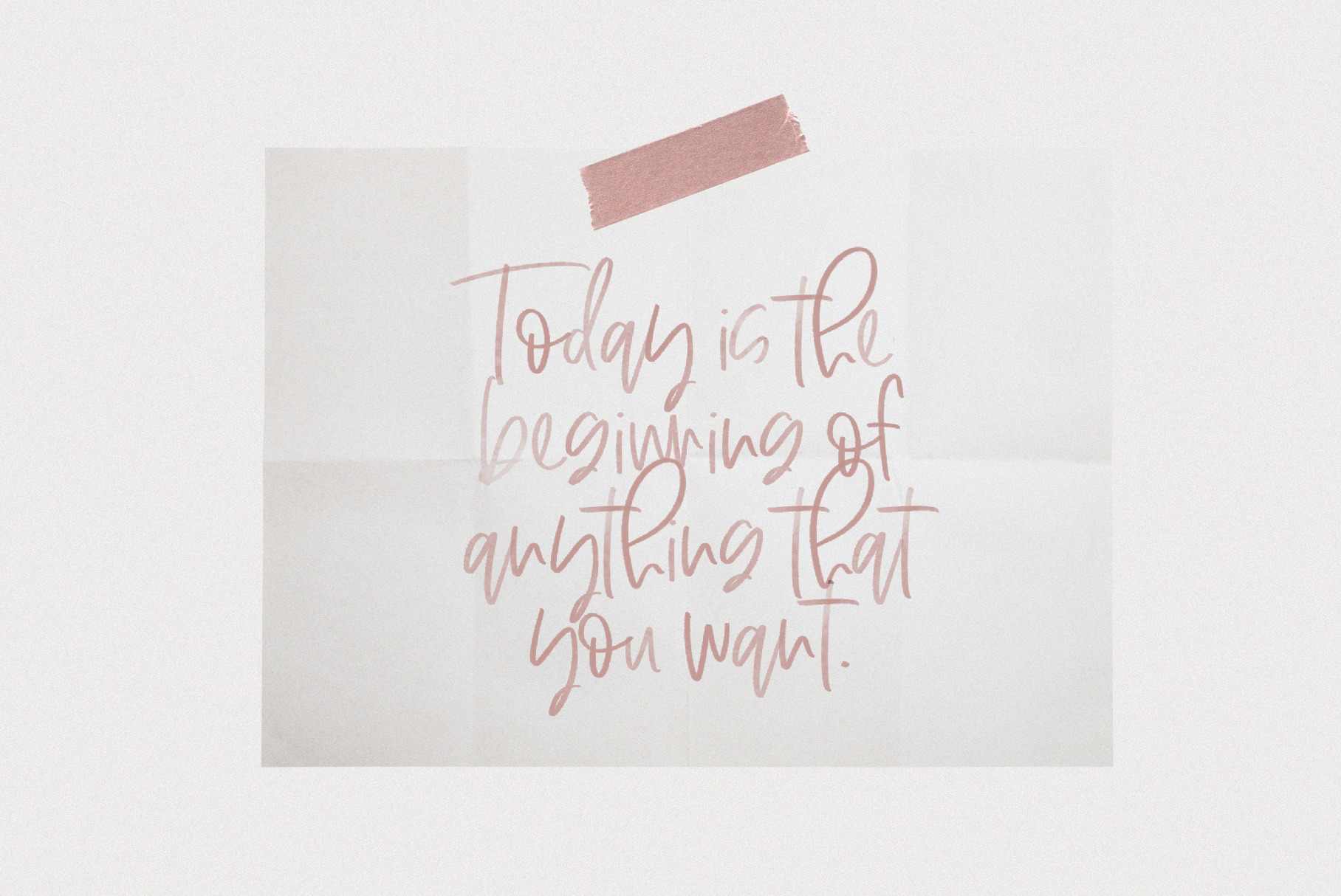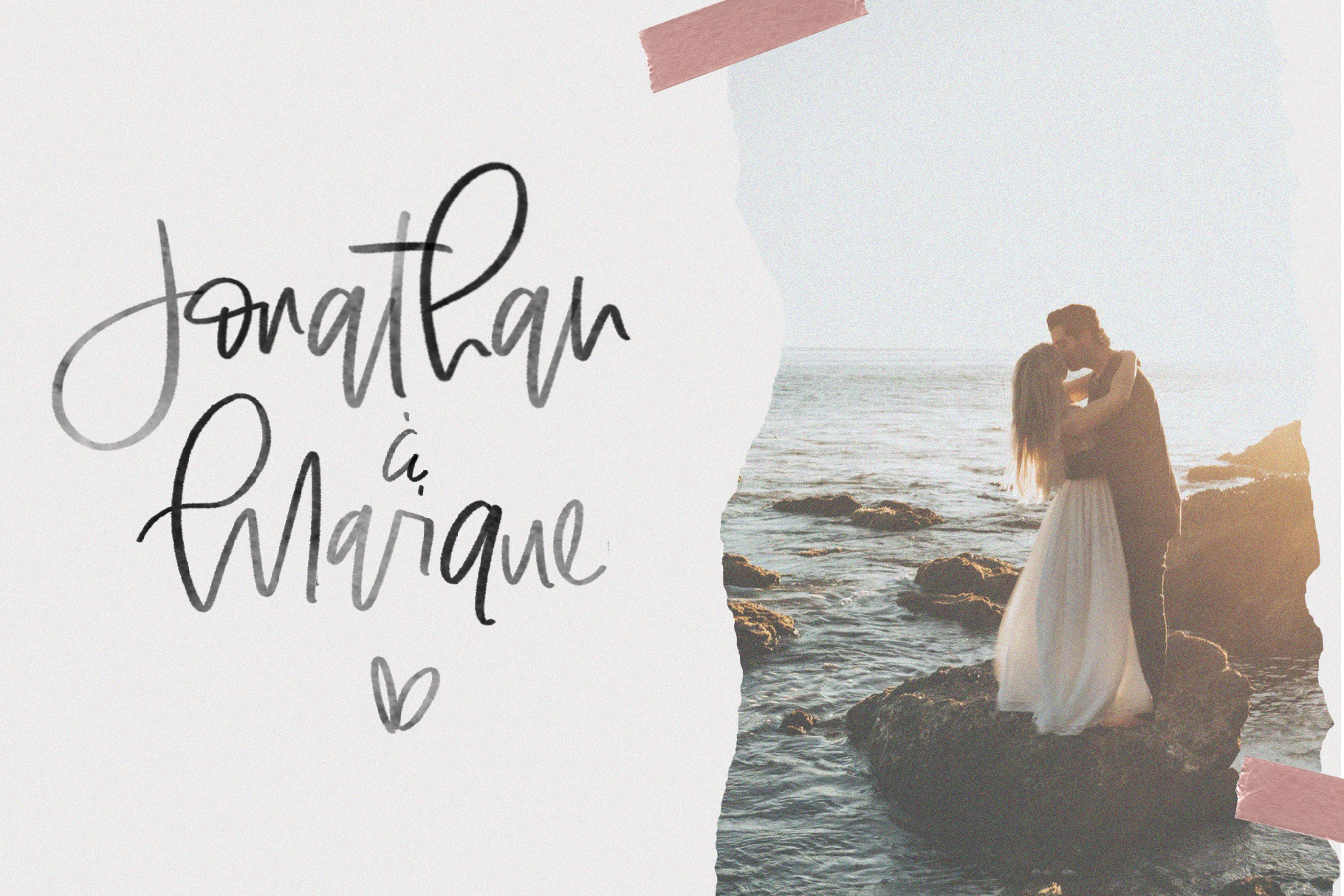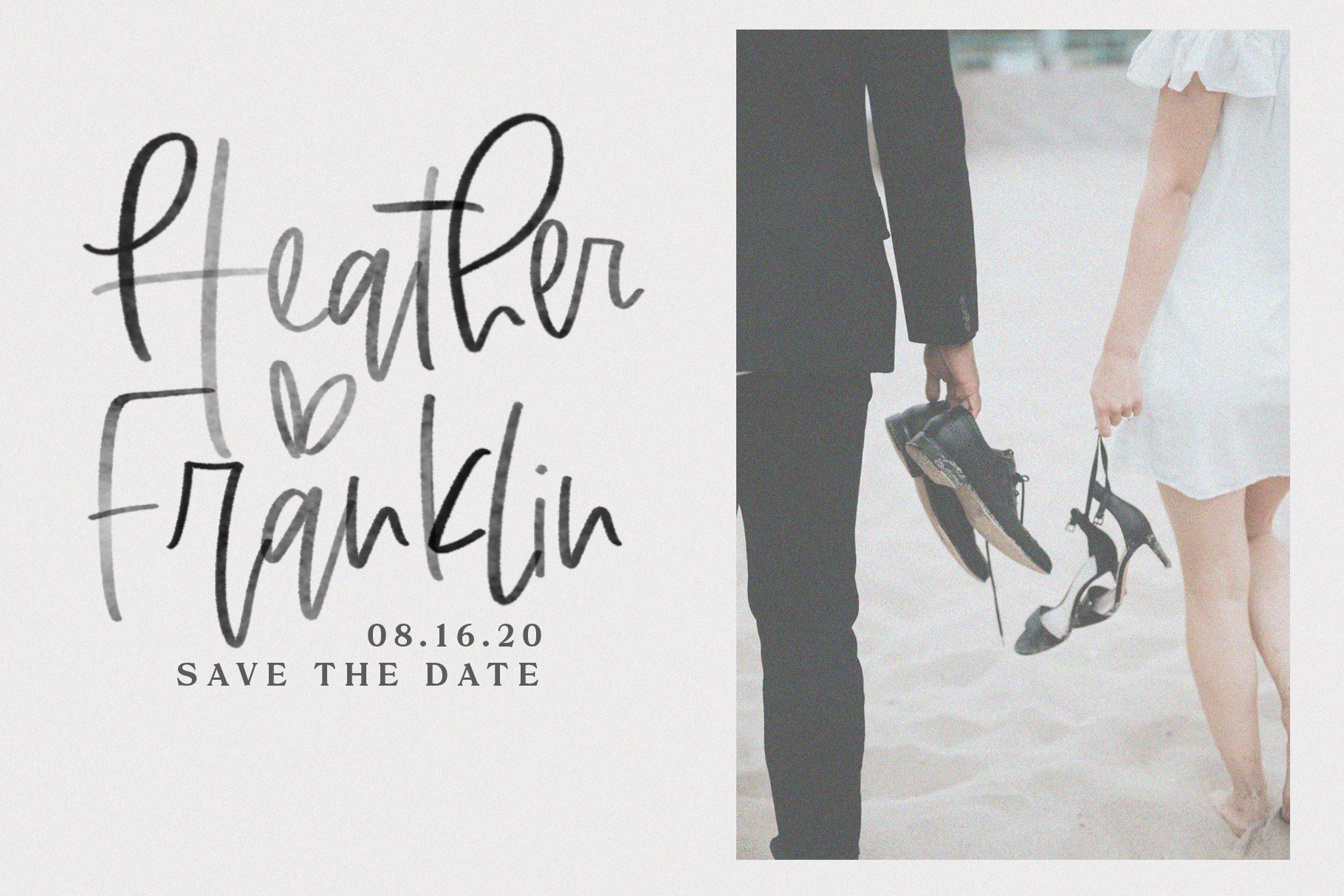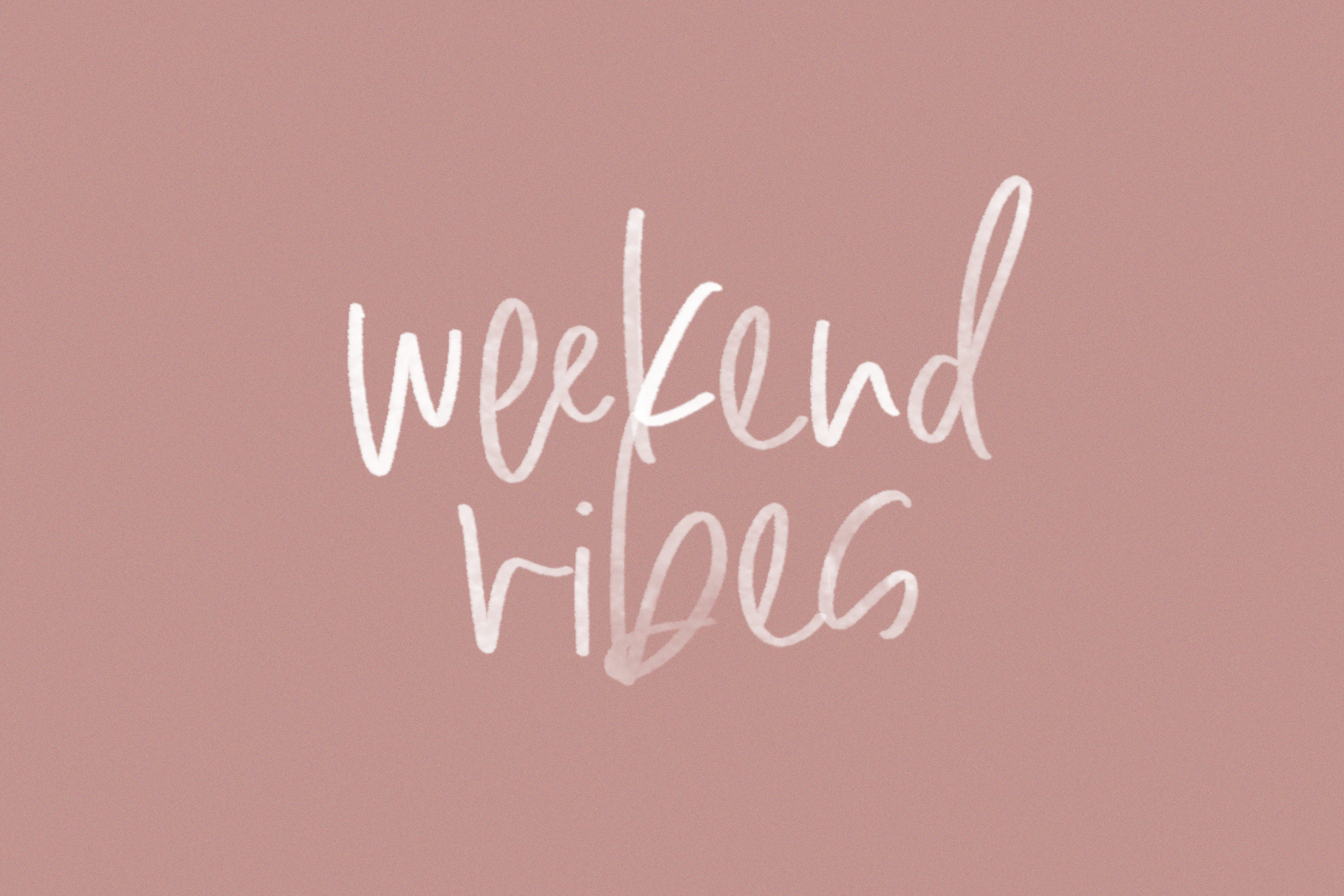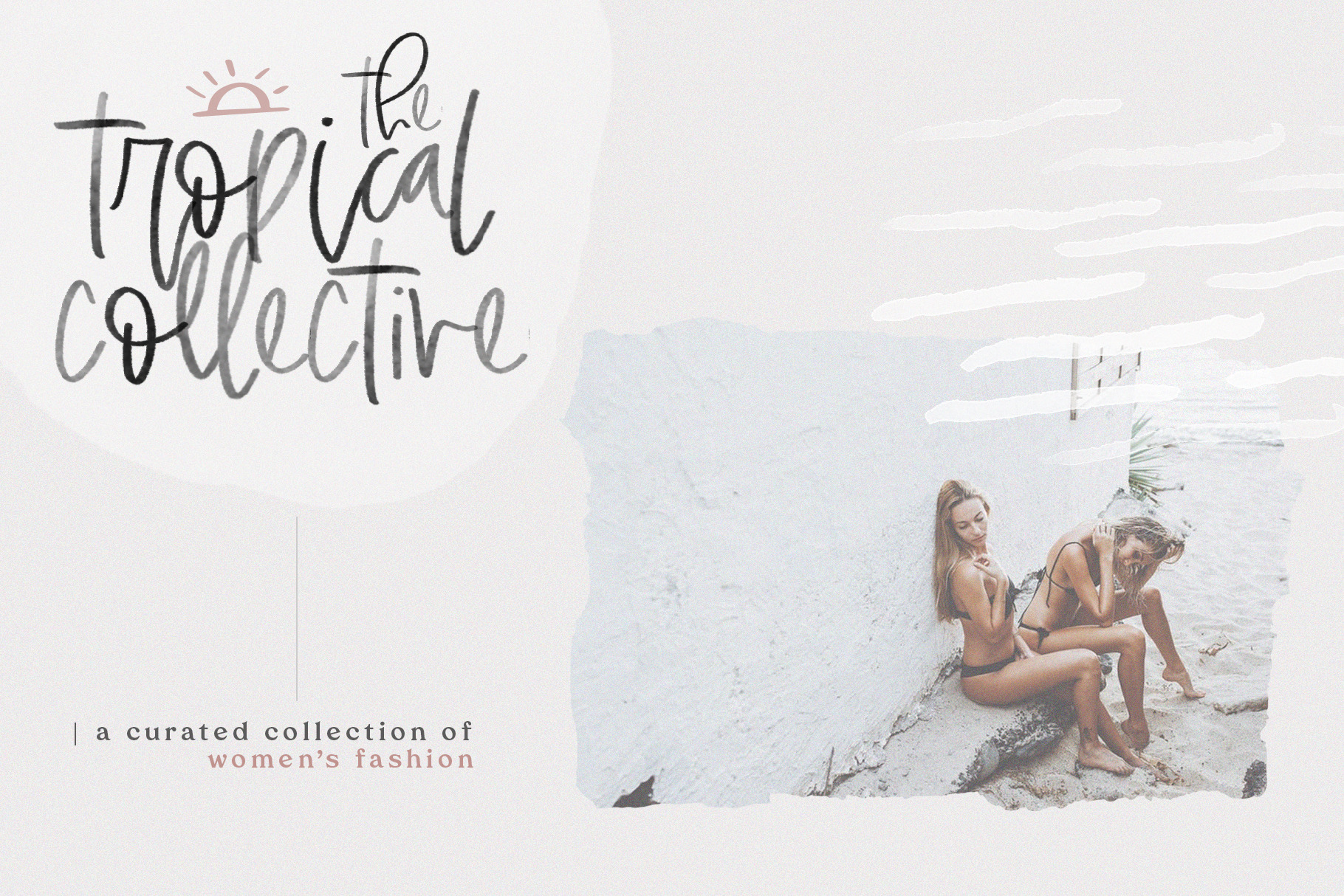
Otherway is handwritten font with a quirky, modern calligraphy look! This download includes Otherway in both SVG and regular OTF formats. Each letter has been drawn by hand keeping the untouched texture for the SVG font. If you are unable to access SVG fonts, a solid style is accessible. - *Note* SVG fonts are only compatible with Photoshop CC 2017 or Illustrator CC 2018 (or newer). The regular version of this font will be accessible in any program. Otherway is perfect for modern projects, headings, blogs, logos, brandings, invitations and more! This purchase includes: - Otherway SVG font - Otherway OTF font - Otherway TTF font Accent characters are *not* included at this time. Thank you! | Otherway - SVG & Solid Script Font | KA Designs